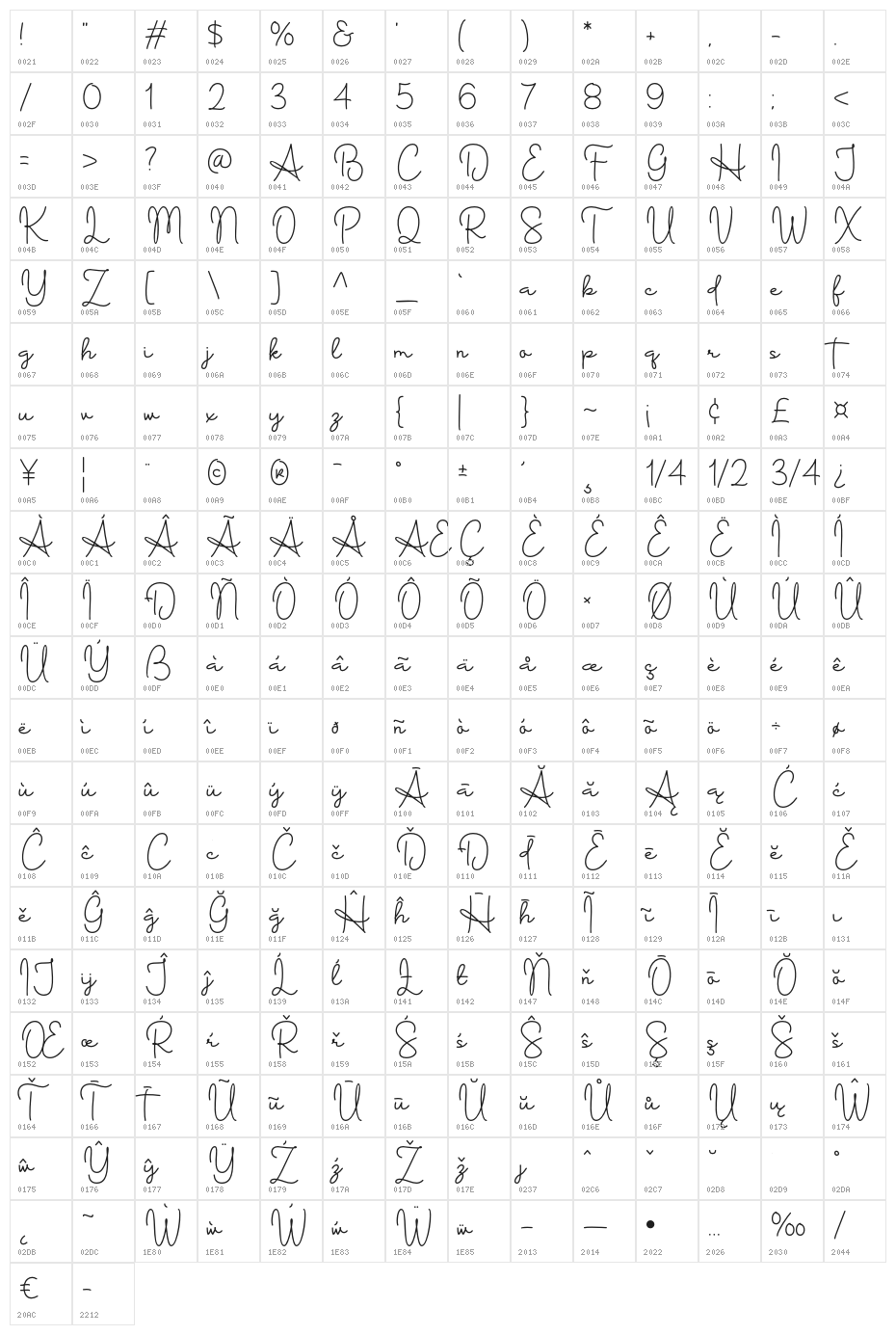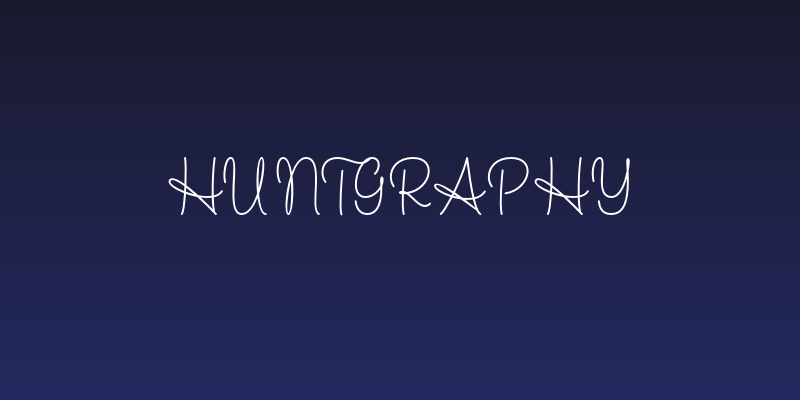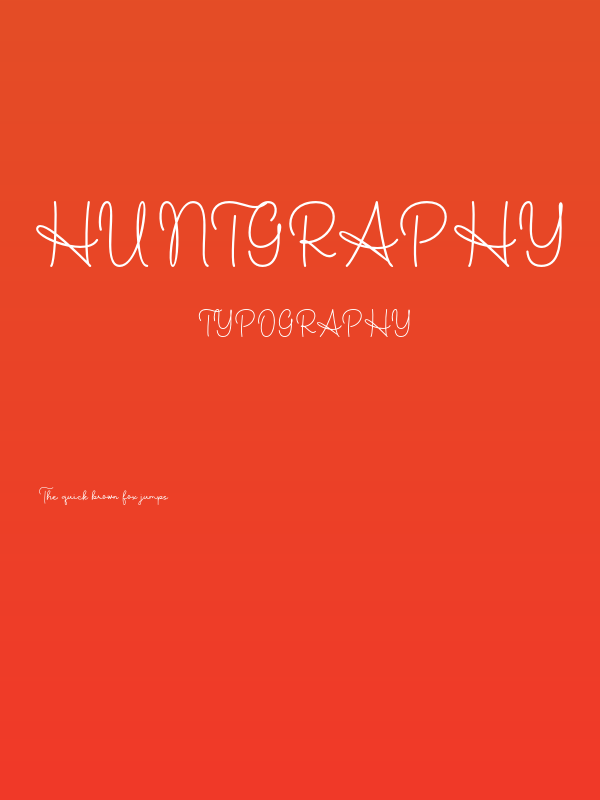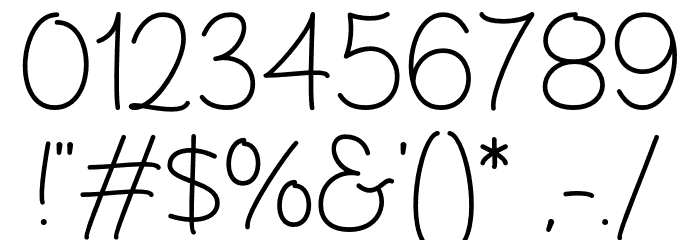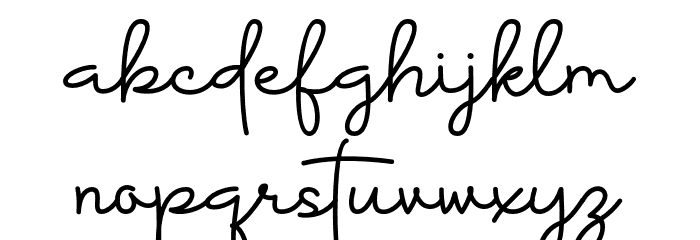
Huntgraphy Font
Huntgraphy Description
This font exudes a playful and casual handwritten style, characterized by its flowing, cursive-like uppercase and lowercase letters. The uppercase letters are tall and slightly narrow, with a whimsical flair that adds a touch of elegance. The lowercase letters maintain a consistent flow, with rounded forms and smooth curves that enhance readability. The numerals are bold and clear, matching the overall style of the alphabet. Special characters are thoughtfully designed to complement the letters, maintaining the font's cohesive look. This font is perfect for projects that require a personal touch, such as invitations, greeting cards, or branding materials.
| Overall Style | Casual, Playful |
| Use Case | Headlines, Logos, Invitations |
| Proposed Projects | Ideal for invitations, greeting cards, branding materials, and personal projects. |